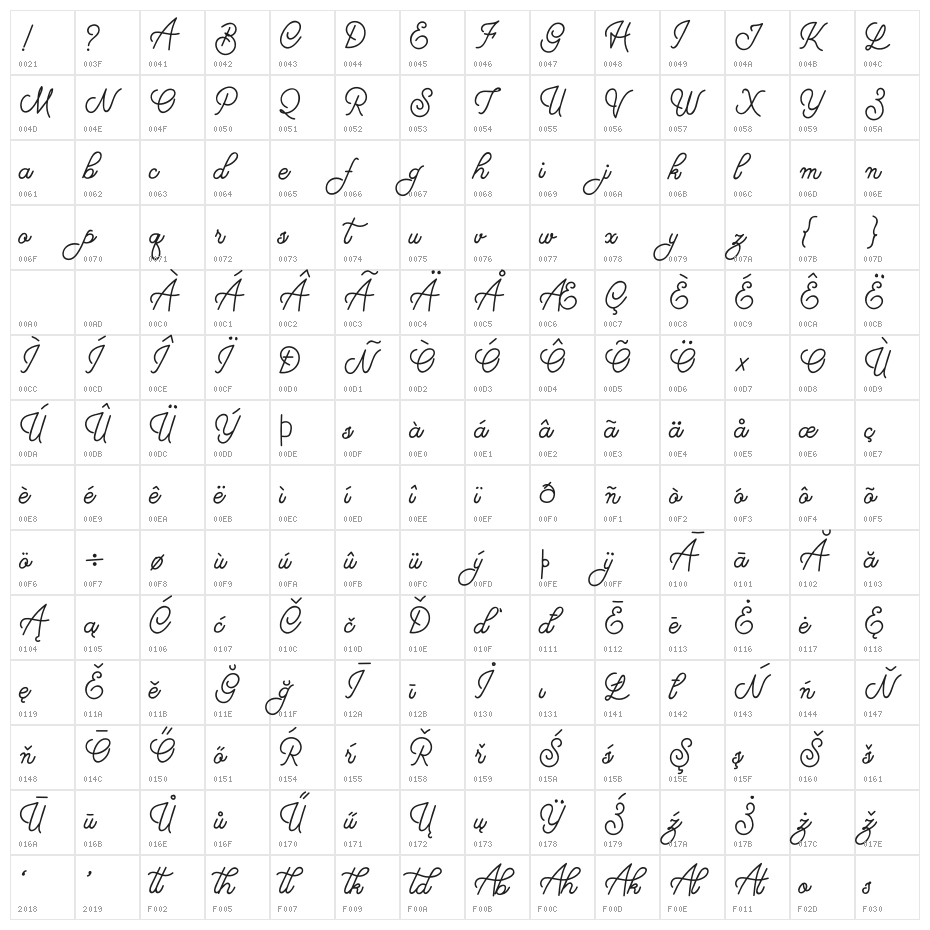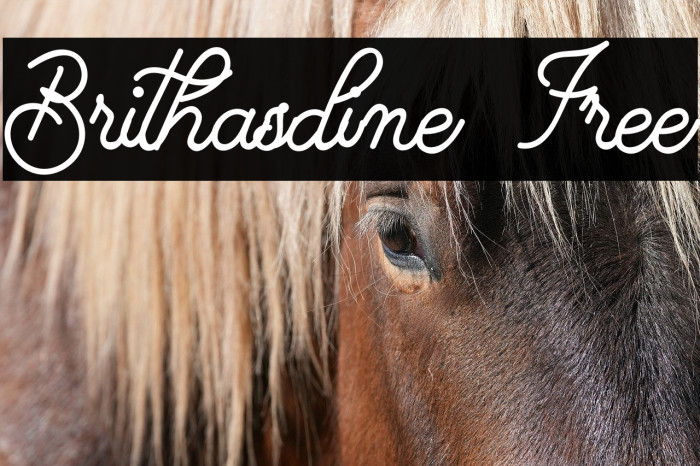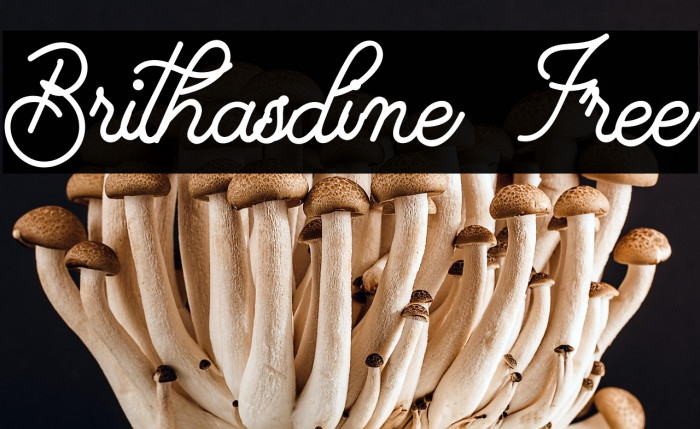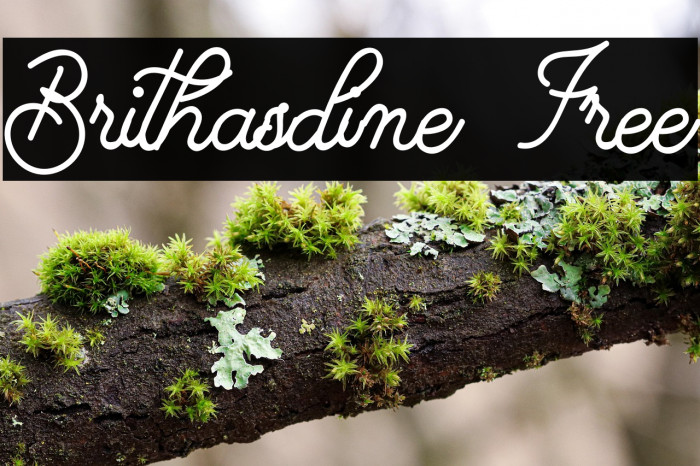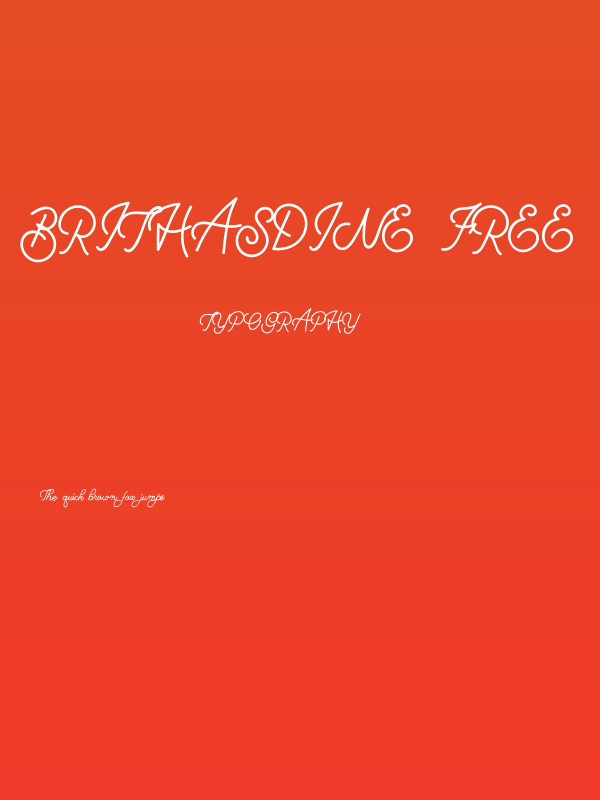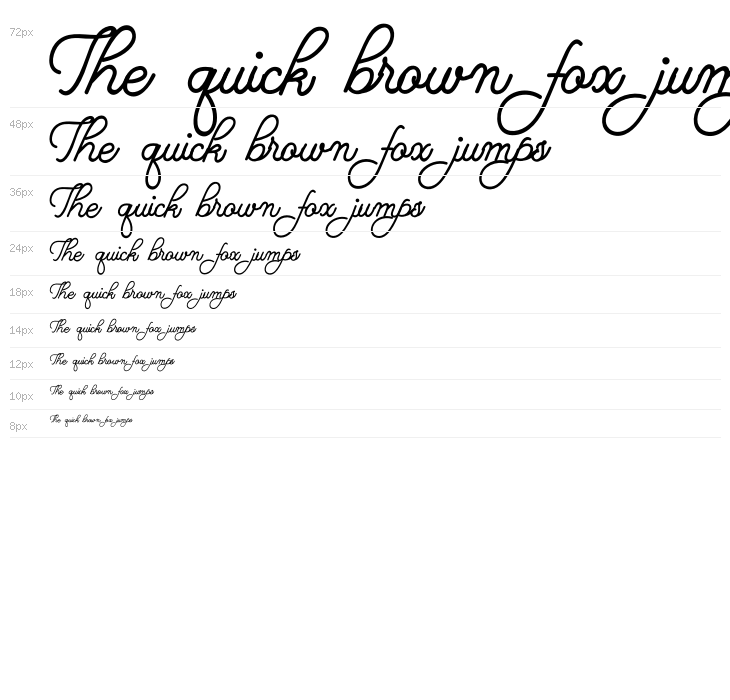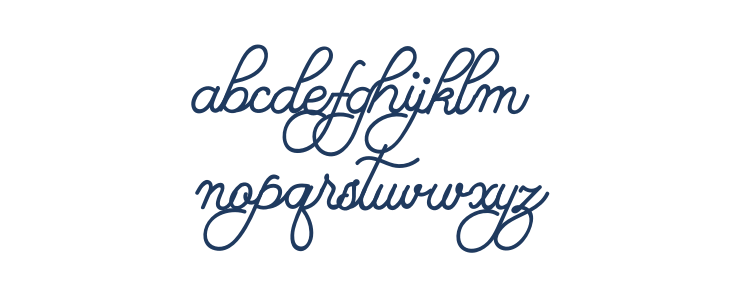
Brithasdine Free Font
Brithasdine Free Description
This elegant script font features a flowing, cursive style with smooth, rounded edges and a consistent stroke width. The uppercase letters are gracefully connected, creating a sense of continuity and fluidity. The lowercase letters maintain a similar style, with some characters featuring distinctive loops and swashes that add a touch of sophistication. The font's overall appearance is both classic and modern, making it versatile for various design applications. The absence of numbers and most special characters suggests a focus on decorative text rather than comprehensive typesetting.